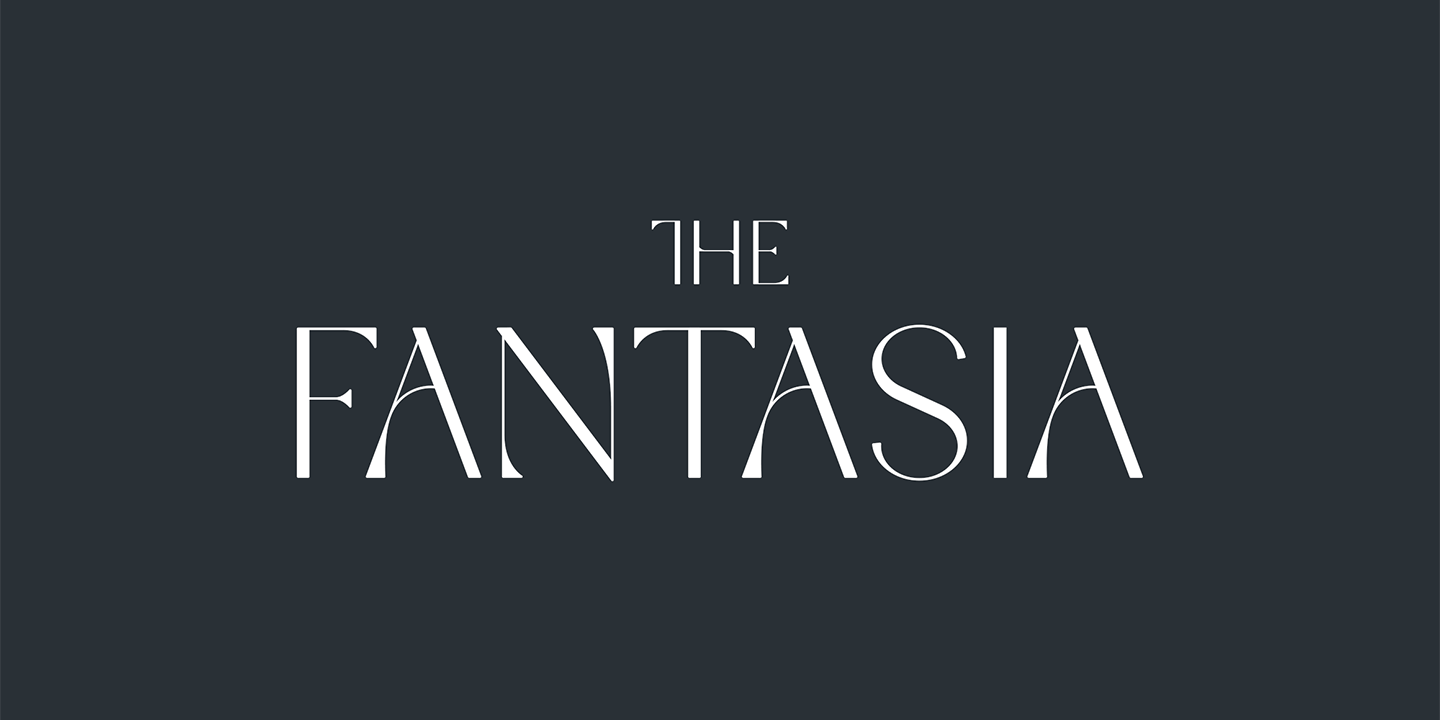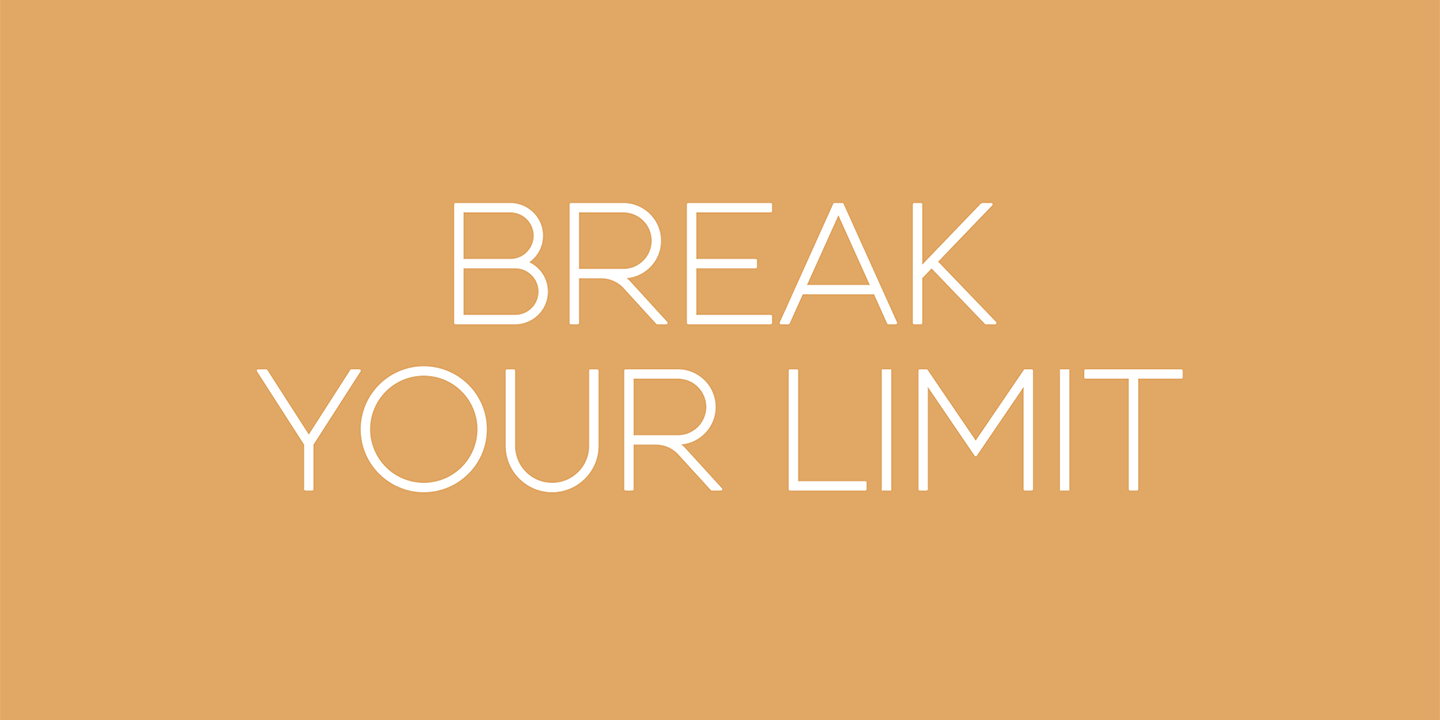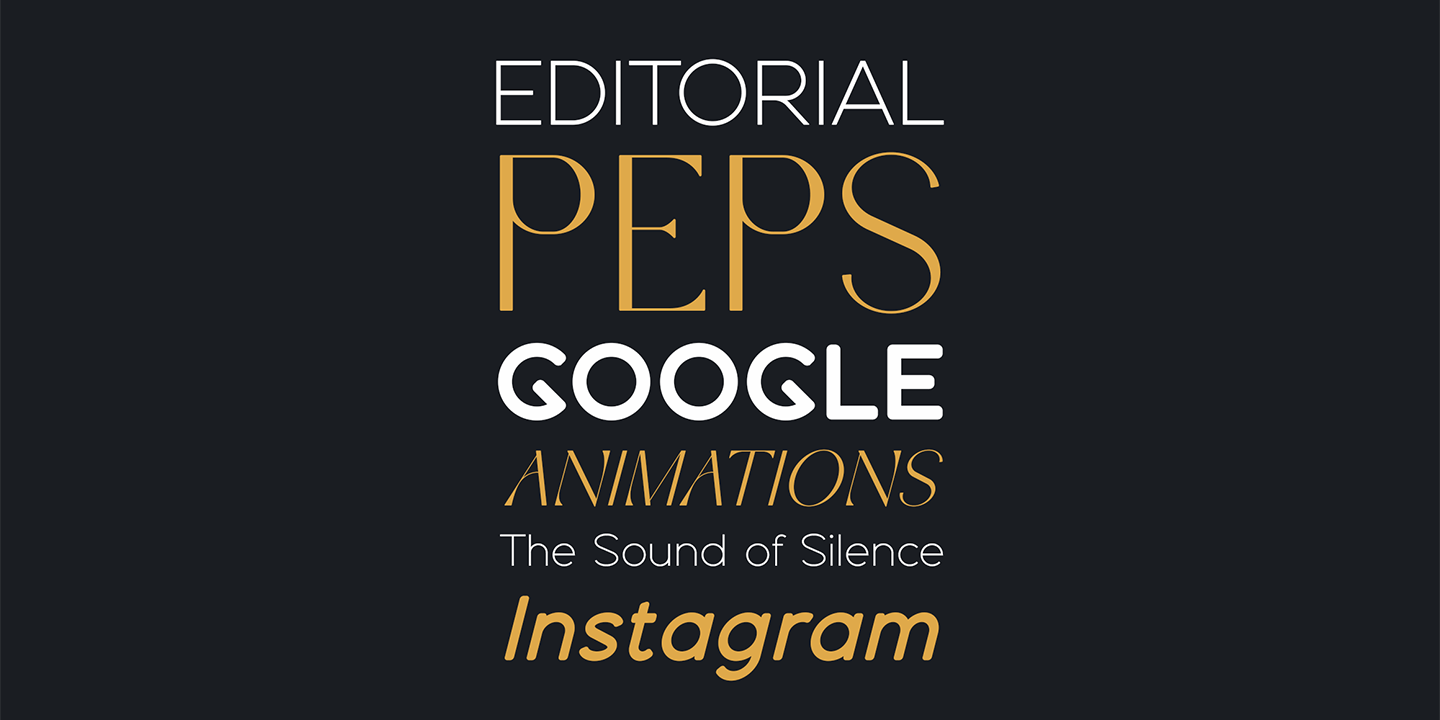
Espial
About Espial
Introducing Espial typeface – 36 fonts For crafting amazing typographic designs, look no further than Espial! This timeless typeface is packed with 36 font styles featuring 87 languages and beautiful ligature glyphs to give your words a truly unique…